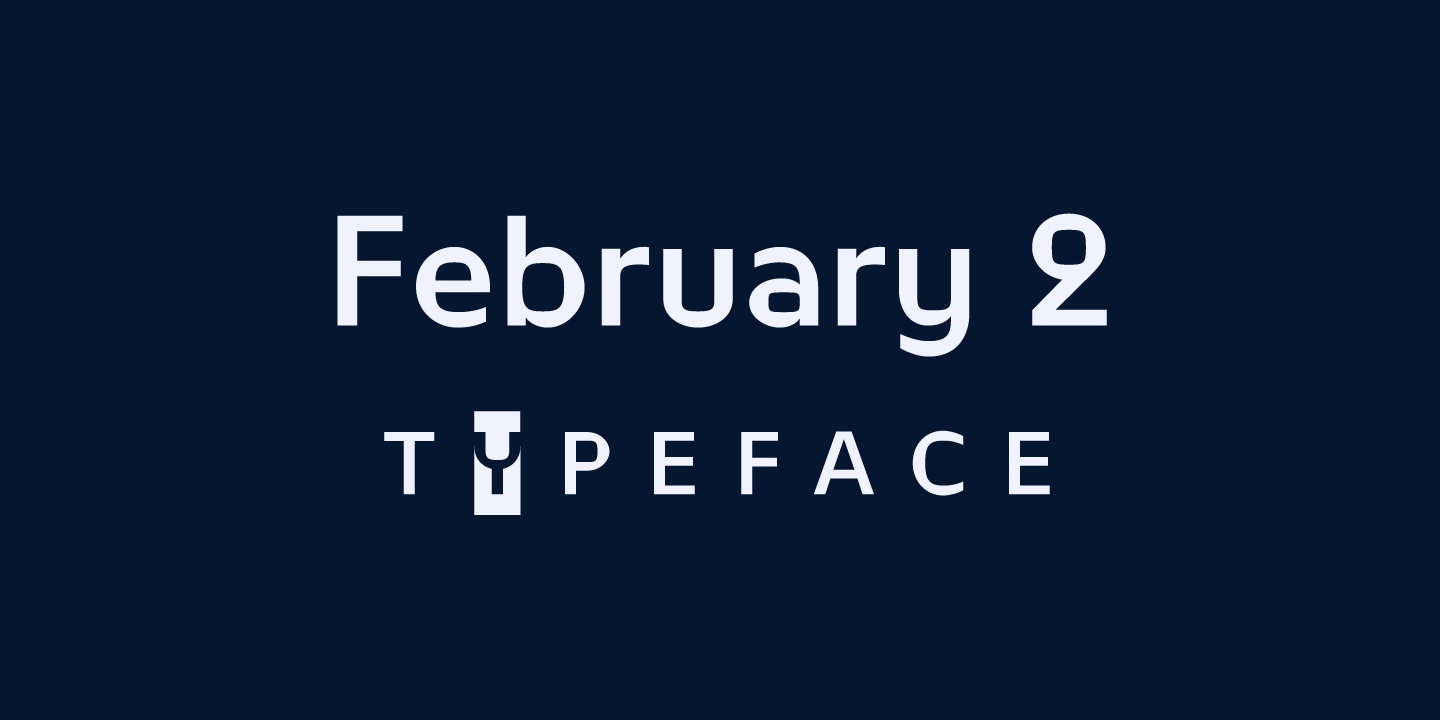
February 2 Font
February 2 Font is perfect for winter celebration events, seasonal milestone commemorations, date-specific anniversary services, romantic February occasions, winter wedding planning, and cold-season lifestyle brands. Its distinctive character makes it ideal for Groundhog Day celebrations, winter festival organizers, February birthday parties, seasonal marketing campaigns, winter sports events, and any project requiring seasonal specificity with winter charm and date-focused celebration appeal.
This font is exciting because it captures the unique spirit and seasonal atmosphere of mid-winter celebrations while delivering exceptional functionality for organizations marking specific dates, seasonal events, and the special significance that certain calendar moments hold in our lives. The seasonally crafted letterforms evoke the crisp clarity of winter air and the anticipation that comes with marking important dates, creating typography that feels both timely and timeless.
The February 2 Font family typically includes Light, Regular, Medium, and Bold weights with seasonal alternates, date-inspired ligatures, and winter elements that enhance its commemorative personality. This comprehensive collection enables event professionals to create memorable brand systems that maintain seasonal authenticity while offering flexibility for various date-specific applications requiring both temporal significance and contemporary celebration market positioning.
Whether you're developing identity systems for seasonal event companies, creating materials for date-specific celebrations, or designing promotional content for winter milestone services, February 2 Font Free Download delivers the seasonal charm and commemorative appeal that connects with audiences seeking to mark special dates and celebrate seasonal moments. Its distinctive presence ensures memorable brand recognition across digital platforms and print materials, making it perfect for websites, mobile applications, and seasonal campaigns that celebrate specific dates, winter traditions, and the transformative power of marking meaningful moments with contemporary seasonal standards and authentic commemorative significance.